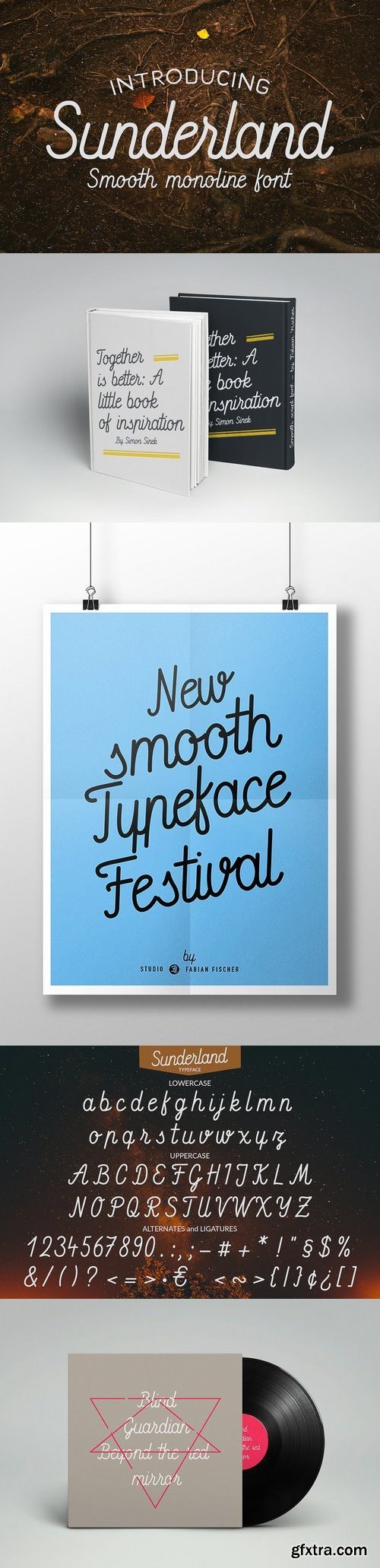
Sunderland is a classic monoline cursive script font. This typeface includes all uppercase and lowercase letters. It works great for both modern and vintage style work. Use Sunderland script in a range of items like packaging, posters, logotypes, branding, book covers, magazines, wedding stationery and much more. .otf included in the the download. Can be used for both Commercial and Personal projects. Contact me if you encounter any problems. (Mistakes will be updated)